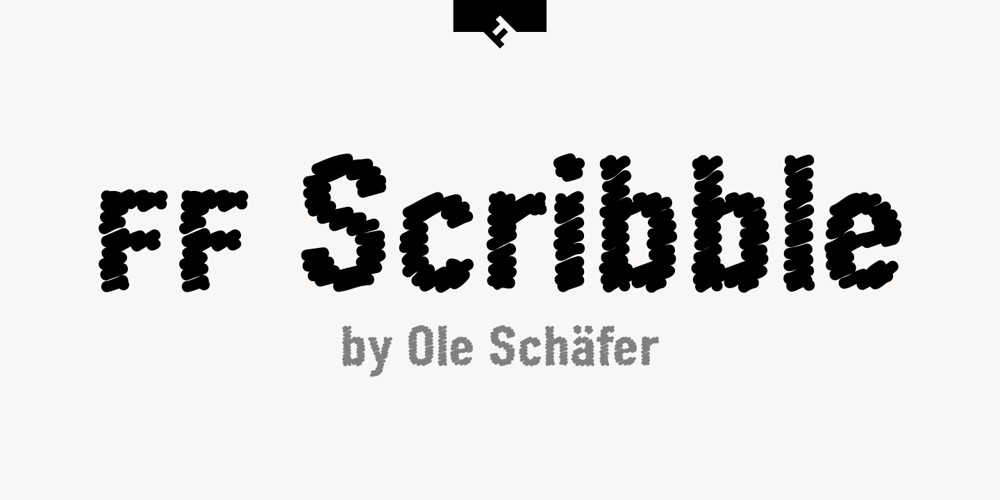
FF Scribble Font Family was designed by Ole Schäfer and published by FontFont. FF Scribble contains 6 styles and family package options. German type designer Ole Schäfer created this display FontFont in 1995. The family has 6 weights, ranging from Regular to Bold and is ideally suited for film and tv, editorial and publishing as well as poster and billboards. FF Scribble provides advanced typographical support with features such as ligatures, small capitals, and case-sensitive forms. It comes with proportional oldstyle and proportional lining figures.